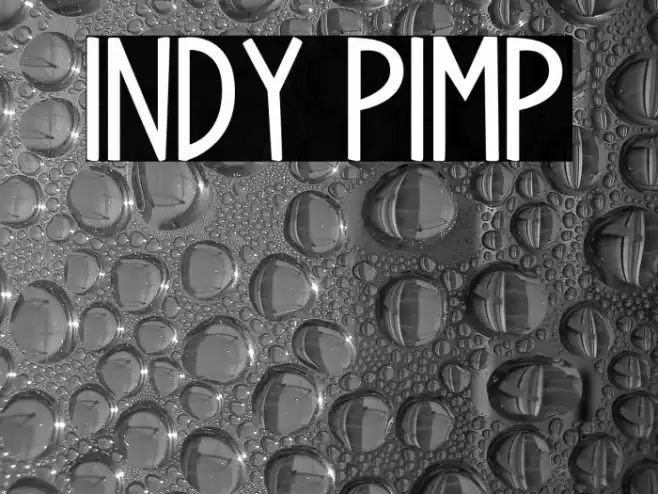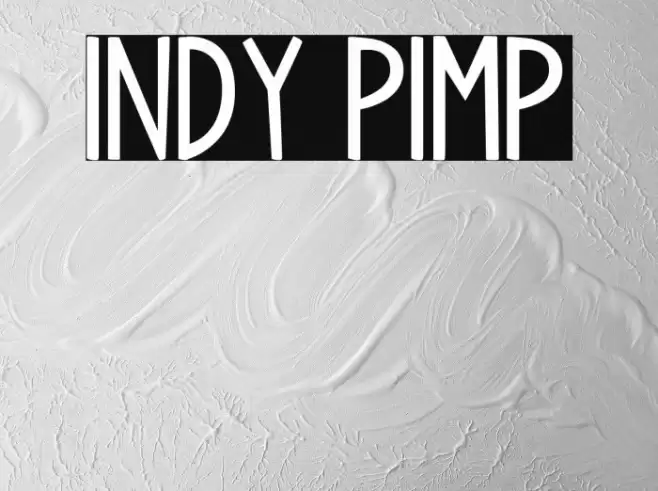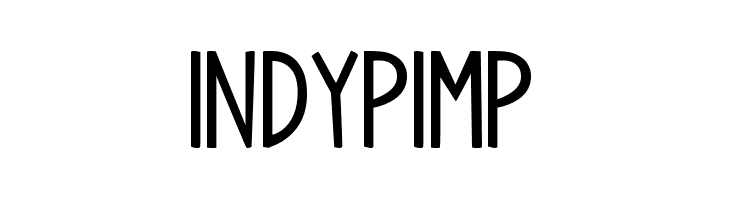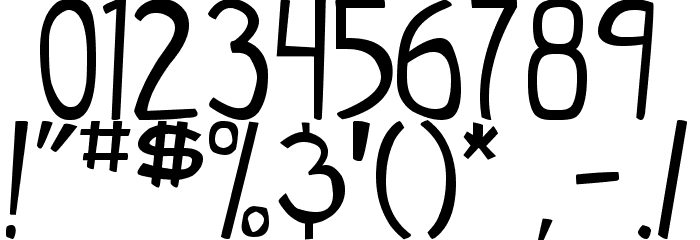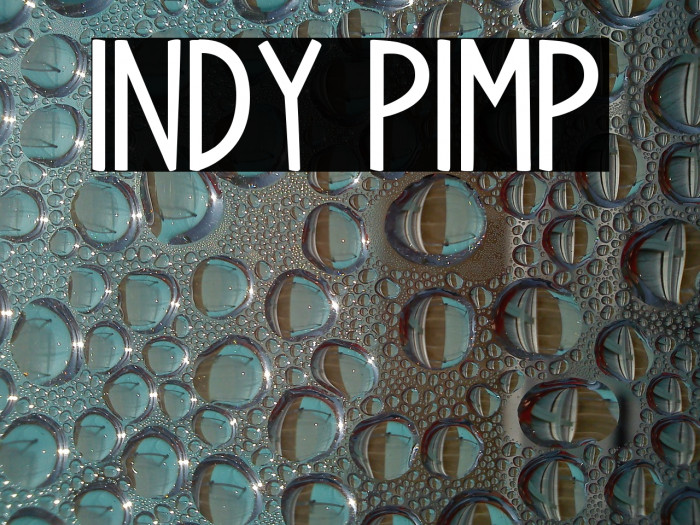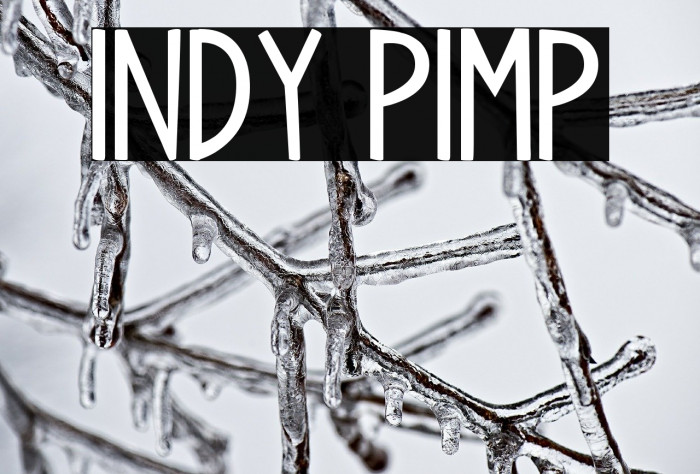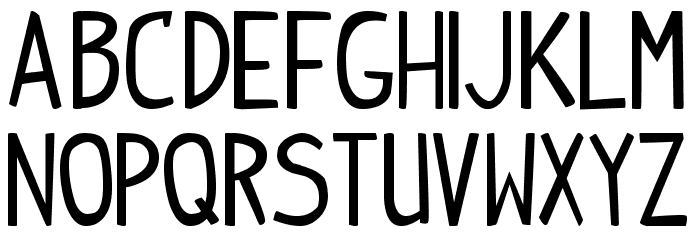
Indy Pimp Font
Indy Pimp Description
This font features a playful and informal style with a hand-drawn appearance. The characters are tall and slightly narrow, with a consistent stroke width that gives it a uniform look. The uppercase letters are bold and prominent, while the lowercase letters maintain the same playful aesthetic. The numbers are quirky and match the overall style, adding to the font's charm. Special characters are included, maintaining the same hand-drawn feel. This font is ideal for projects that require a casual and friendly tone, making it suitable for creative and artistic designs.
A playful, hand-drawn font with a casual and informal style from Comic fonts.
- Proposed Projects: Ideal for children's books, creative posters, casual branding, and playful invitations.
- Overall Style: Casual, Playful
- Use Case: Headlines, Logos, Creative projects